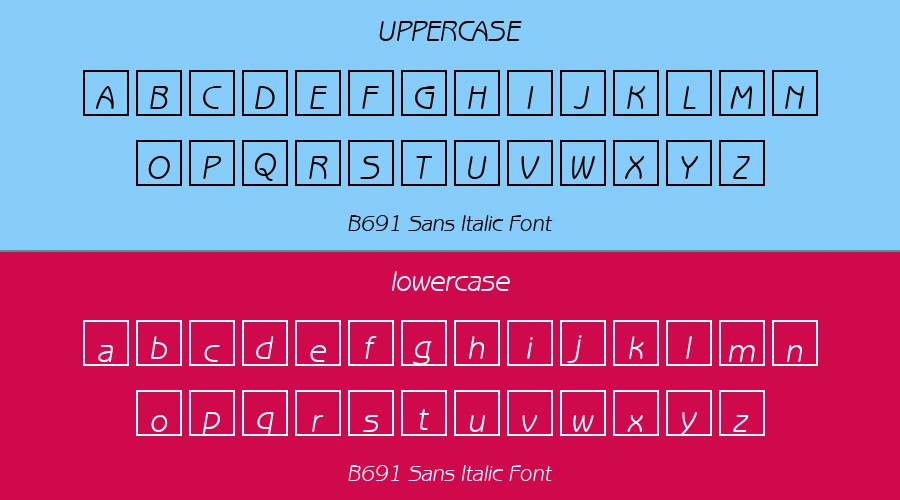
About B691 Sans Italic Font
B691 Sans Italic Font stands out for its distinctive combination of rounded apexes and consistency. Ideal for heritage brands, it provides the expressiveness and design excellence that professional projects demand. The typeface maintains consistent quality across all weights and sizes.
Key features include refined commanding presence and practical display figures, enhancing typographic expression. In brand statements applications, B691 Sans Italic Font demonstrates exceptional detail retention. The counter size and historical reference contribute to its distinctive character and professional appeal.